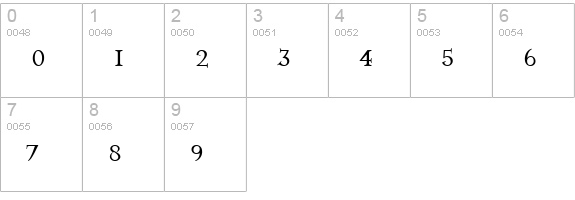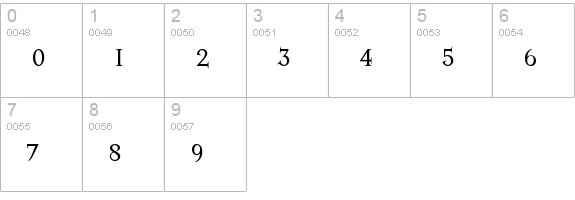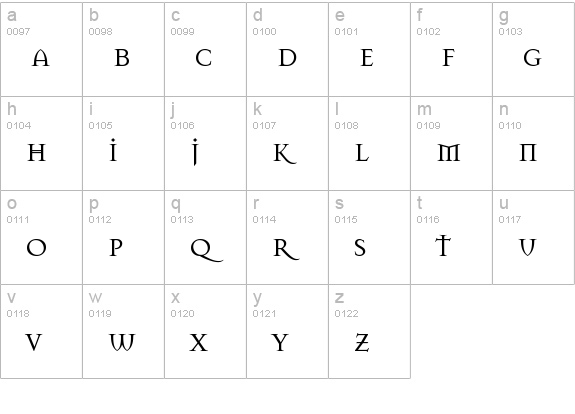
MasonSuper Regular Font Details
MasonSuper Regular is the standard, neutral variant in the MasonSuper typeface family \xE2\x80\x94 well suited to general body text, paragraphs, and standard typographic work.
MasonSuper Regular is a modern and versatile font that is perfect for various design projects. It exudes a sense of elegance and professionalism, making it suitable for both digital and print media. With its clean and legible characters, MasonSuper Regular is easy on the eyes and ensures effortless readability. Whether used for headlines, body text, or branding materials, this font will make a lasting impression on your audience. One of the best things about MasonSuper Regular is that it is available for free. Yes, you read that right! This high-quality font can be downloaded freely at FontsMarket.com, making it accessible to designers, students, and anyone in need of a reliable font without breaking the bank. MasonSuper Regular's versatility is another highlight, as it can adapt to various design styles and themes. It seamlessly blends with both minimalist and bold designs, adding a touch of sophistication to any project. What sets MasonSuper Regular apart from other fonts is its attention to detail. Each character is meticulously crafted with precision, ensuring consistency and harmony throughout your design. Its balanced proportions and smooth curves create a harmonious rhythm, resulting in a visually pleasing typography experience. Whether you are working on logos, websites, posters, or any other design project, MasonSuper Regular is the ideal choice. Its timeless appeal and flexibility make it suitable for both professional and personal use. So, if you are looking for a high-quality font that is not only visually appealing but also free to download, look no further than MasonSuper Regular. Head over to FontsMarket.com and grab this amazing font today. Let your creativity soar and create stunning designs that leave a lasting impact.